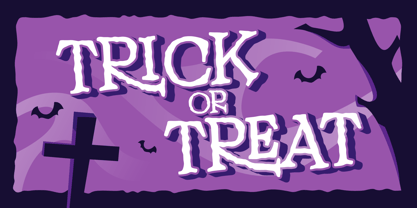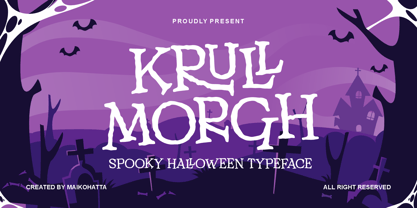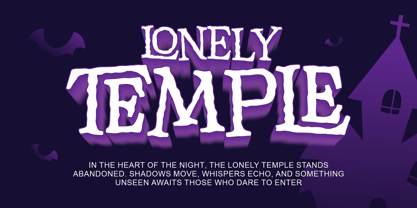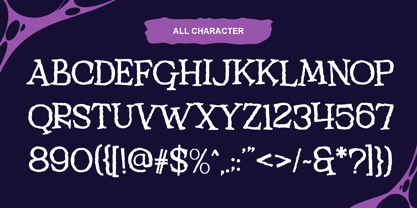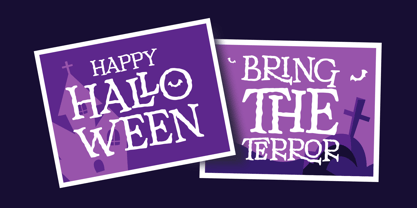
Krull Morgh
by Maikohatta
The Krull Morgh Font Family was designed by Gilang Ternadho and published by Maikohatta. Krull Morgh contains 1 styles. More about this family
Krull Morgh – Spooky Halloween Typeface Krull Morgh is a bold and eerie display font crafted to capture the spirit of Halloween. With its jagged edges, uneven strokes, and bone-like details, this typeface evokes a chilling and mysterious atmosphere perfect for horror themes. Its hand-drawn, slightly distorted look adds a creepy charm that stands out in spooky posters, haunted house flyers, trick-or-treat invitations, game titles, and eerie merchandise.
Designers: Gilang Ternadho
Foundry: Maikohatta